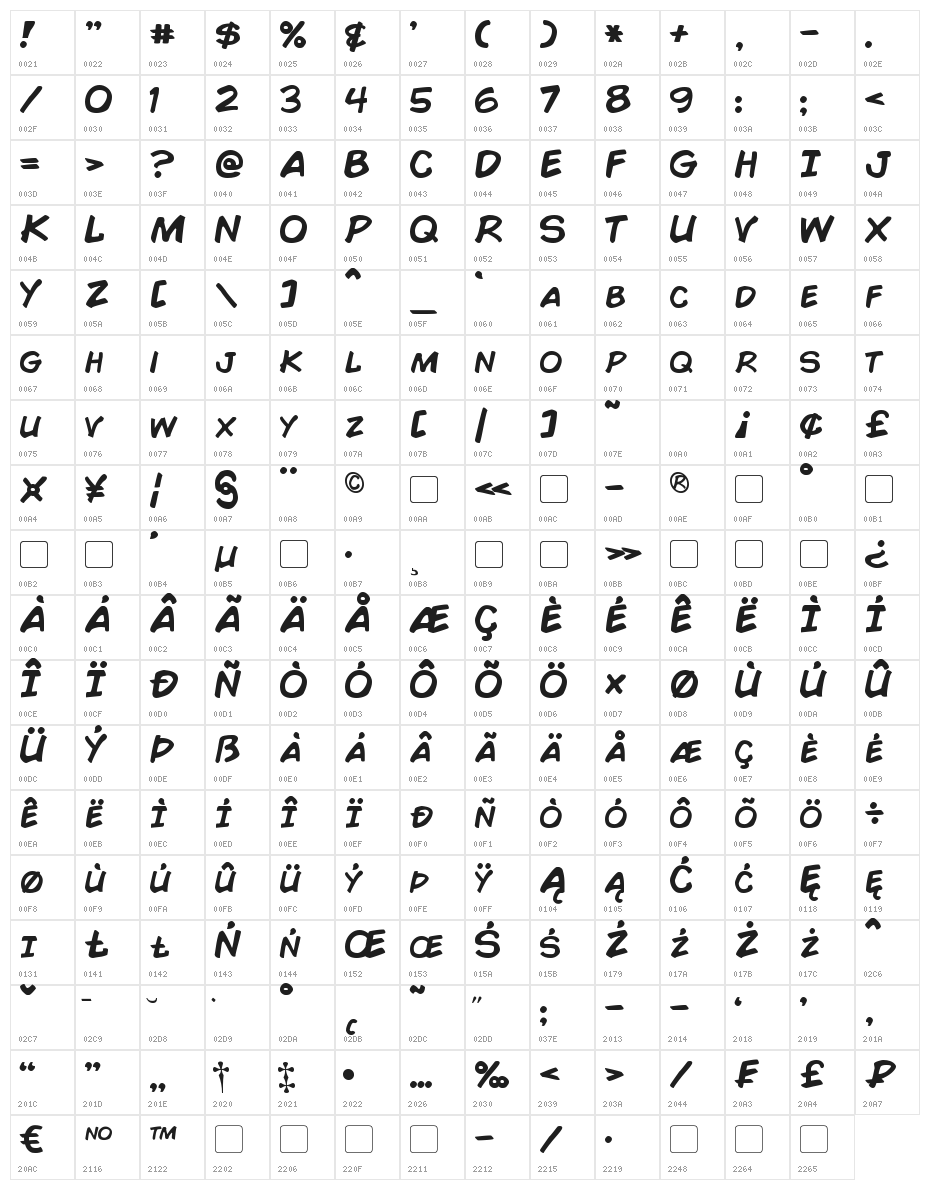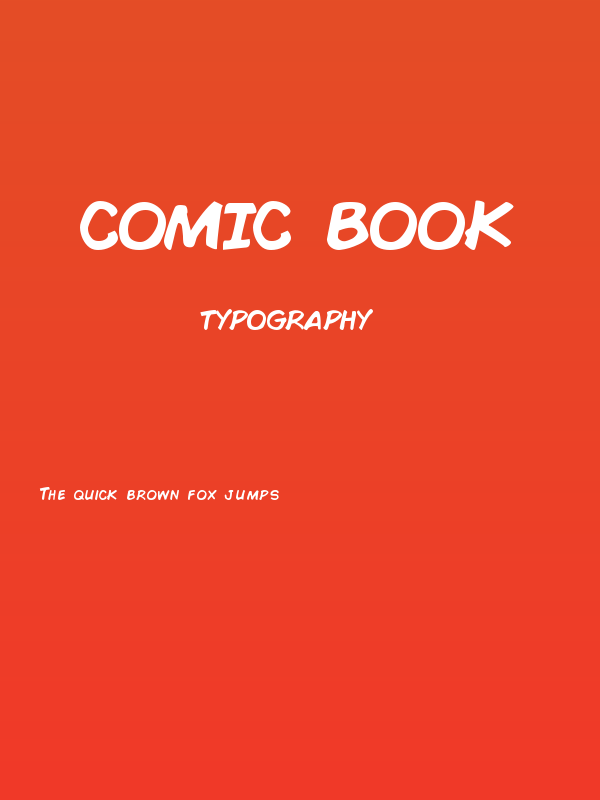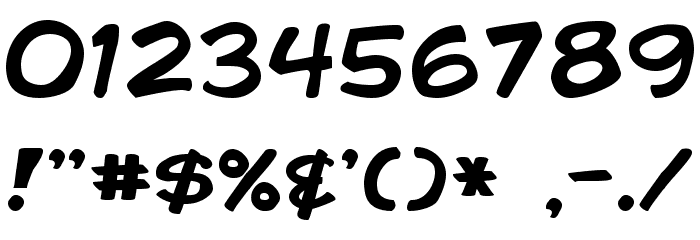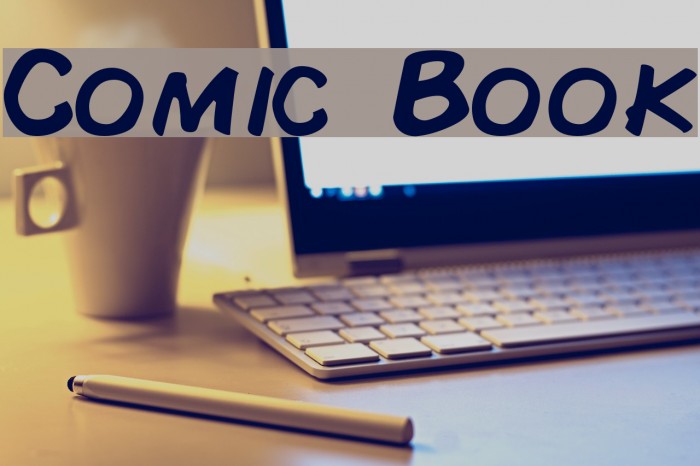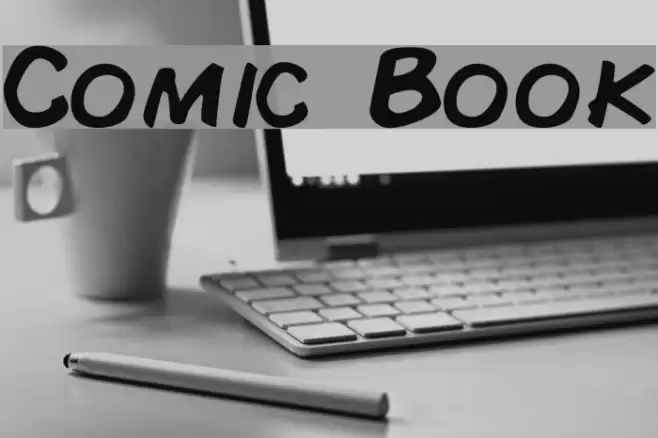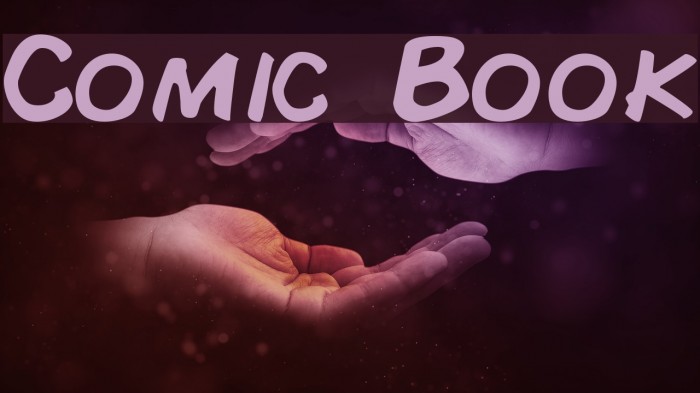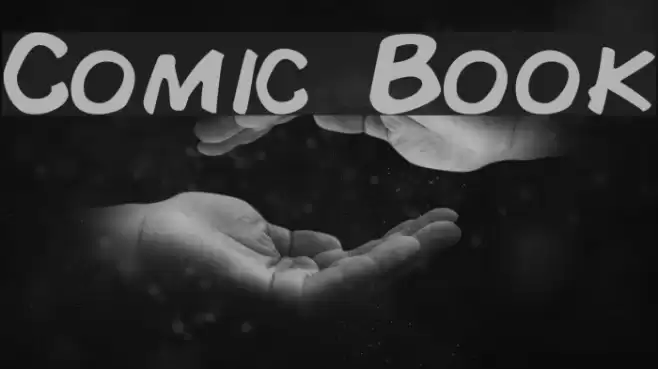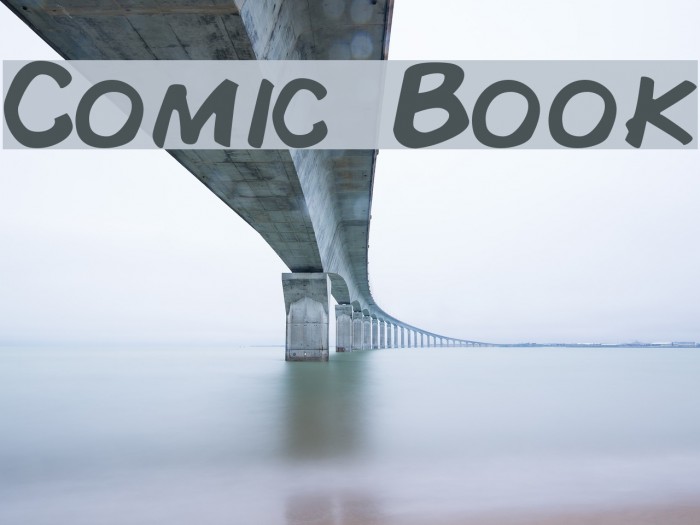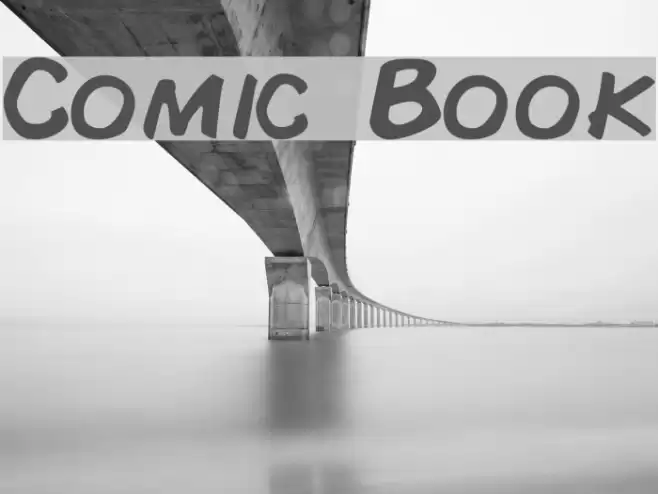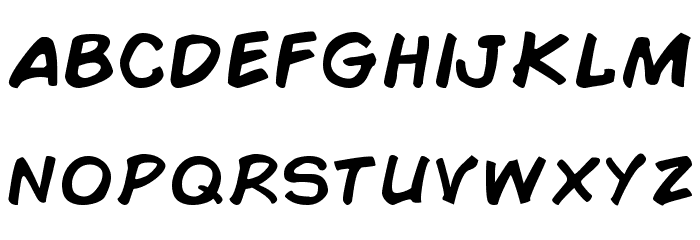
Comic Book Font
| Название | Comic Book |
| Категория | Comic |
| Общий стиль | Playful, Energetic, Comic |
| Рекомендуемые проекты | Ideal for comic books, children's books, playful branding, posters, and any project needing a fun, energetic vibe. |